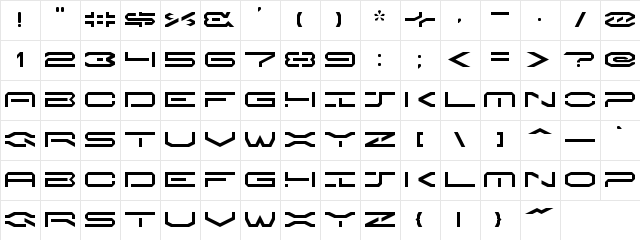
XenoSpace Regular
| Designer | Gnarizard |
Design Context for XenoSpace Typeface
XenoSpace is a composed and adaptable typeface that performs quietly and consistently across a wide range of design contexts.